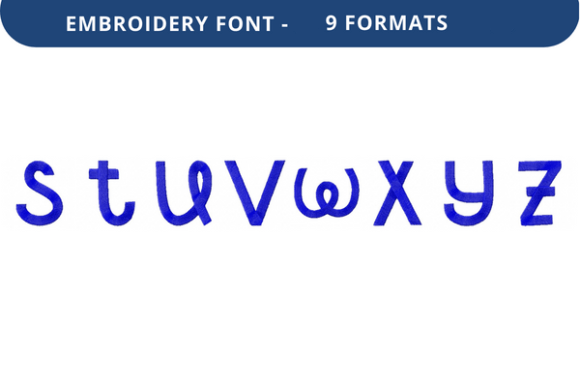
Whimper Willow Font Lowercase S to Z
When it comes to adding a personal touch to your embroidery projects, the right font can make all the difference. The Whimper Willow Font Lowercase S to Z is a standout choice for anyone looking to elevate their creative work with elegance and charm. This font is more than just letters—it's a versatile tool that brings character and warmth to any design.
What Makes Whimper Willow Font Lowercase S to Z Unique?
The Whimper Willow Font Lowercase S to Z is designed with a soft, flowing aesthetic that evokes the gentle curves of willow branches. Its lowercase style makes it ideal for names, dates, and quotes, offering a natural and inviting look. Unlike many standard fonts, this one has a distinct personality that stands out in both digital and physical formats.
One of its key strengths is its adaptability. Whether you're working on a personalized gift, a custom t-shirt, or a branded product, the font maintains its visual appeal without losing clarity. The design is clean yet artistic, making it suitable for a wide range of applications.
Key Characteristics and Strengths
- Soft and Organic Feel: The rounded edges and flowing lines give the font a handcrafted appearance, perfect for creating a sense of warmth and intimacy.
- High-Quality Embroidery Compatibility: This font is specifically optimized for embroidery, ensuring that each letter is crisp and well-defined when stitched.
- Multifunctional Use: From personal projects to commercial branding, the Whimper Willow Font Lowercase S to Z offers flexibility and versatility.
Its ability to maintain readability while still feeling artistic is what sets it apart from other embroidery fonts. Whether you're stitching a name onto a quilt or adding a signature to a promotional item, the font ensures that your message is both seen and felt.
Practical Applications Across Different Environments
The Whimper Willow Font Lowercase S to Z is not limited to one specific use case. Let’s explore how it can be applied in various settings:
Personal Projects
For hobbyists and crafters, this font is a dream come true. Imagine adding a personalized quote to a wedding invitation or a meaningful date to a baby blanket. The soft curves of the font create a sense of nostalgia and tenderness, making it perfect for sentimental items.
Professional and Commercial Use
Businesses and entrepreneurs can benefit from using this font for branding and marketing materials. A custom embroidered logo or tagline can help reinforce brand identity and create a memorable impression. It’s especially useful for boutique stores, artisan markets, and custom apparel businesses looking to stand out.
Educational and Creative Spaces
In classrooms or creative studios, the Whimper Willow Font Lowercase S to Z can be used to label art supplies, create student projects, or decorate bulletin boards. Its friendly and approachable design encourages creativity and engagement among learners of all ages.
Digital and Print Integration
While primarily an embroidery font, it also works well in digital formats. You can use it in graphic designs, social media posts, or print materials to maintain a cohesive brand voice. The font’s versatility allows for cross-platform use, making it a valuable asset in today’s multi-channel world.
Why Choose the Whimper Willow Font Lowercase S to Z?
There are several reasons why this font is worth considering for your next project:
- Appearance: The elegant design enhances the visual appeal of your embroidery, helping your creations stand out.
- Communication: The font adds a personal touch to your messages, making them more engaging and meaningful.
- Branding: For businesses, using this font consistently across all branding materials helps build recognition and trust.
- User Experience: Its ease of use and high-quality output ensure a smooth and satisfying experience for both beginners and experts.
Whether you're a seasoned embroiderer or just starting out, the Whimper Willow Font Lowercase S to Z offers a balance of beauty and functionality that is hard to match. It’s a font that speaks to the heart of creativity and craftsmanship.